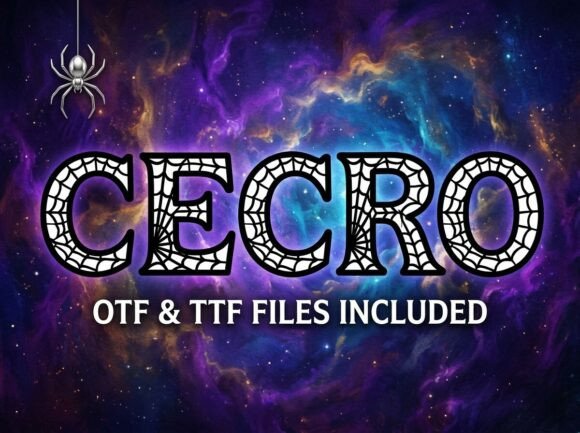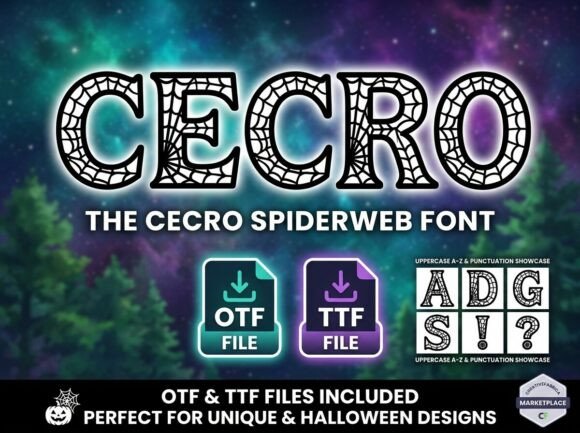
Unleash the Spookiness: Discover the Captivating Cecro Font
Are you looking for a typeface that embodies the essence of Halloween, occult mysticism, and dark fantasy? Look no further than Cecro, a captivating display font that is sure to ensnare your imagination. With its bold, outlined letterforms and intricate internal texture of rhythmic, hand-drawn “spiderweb” patterns, Cecro is the perfect choice for designers and crafters seeking to add a touch of gothic mystery and modern Halloween flair to their projects.
The Unique Characteristics of Cecro Font
Cecro’s design is characterized by its heavy structural weight, which gives it a bold and eye-catching presence. The font’s outlined letterforms are uniquely adorned with an intricate internal texture of rhythmic, hand-drawn “spiderweb” patterns, adding an extra layer of depth and visual interest. This distinctive feature bridges the gap between gothic mystery and modern Halloween branding, making Cecro a versatile and effective choice for a wide range of design applications.
Ideal Applications for Cecro Font
So, what can you use Cecro for? The possibilities are endless, but here are some ideal applications for this captivating font:
- Independent Haunted Attraction Identities: Create a spooky and inviting atmosphere for your haunted house, haunted hayride, or haunted attraction with Cecro’s bold and eerie lettering.
- Boutique Occult Shop Logos: Add a touch of mysticism and mystery to your occult shop’s branding with Cecro’s unique and captivating design.
- Dark Fantasy Book Covers: Make your dark fantasy book cover stand out with Cecro’s bold and eye-catching lettering, perfect for conveying the essence of your story.
- High-Impact Social Media Headers: Add a touch of Halloween flair to your social media headers with Cecro’s webbed-and-wonderful design, sure to grab attention and drive engagement.
Why Choose Cecro Font?
With so many fonts available, why choose Cecro? Here are just a few reasons why Cecro stands out:
- Unique and Captivating Design: Cecro’s intricate internal texture and bold, outlined letterforms make it a one-of-a-kind font that is sure to grab attention.
- Versatility: Cecro’s design is versatile and adaptable, making it suitable for a wide range of design applications, from haunted attraction identities to dark fantasy book covers.
- Eerie Personality: Cecro’s design embodies the essence of Halloween and occult mysticism, making it perfect for designers and crafters seeking to add a touch of spookiness to their projects.
Tips for Using Cecro Font Effectively
To get the most out of Cecro, here are some tips for using the font effectively:
- Use it Sparingly: Cecro’s bold and eye-catching design makes it perfect for headlines and titles, but use it sparingly to avoid overwhelming your design.
- Experiment with Colors: Cecro’s design looks great in a range of colors, from bold and bright to dark and muted. Experiment with different colors to find the perfect fit for your design.
- Pair it with Other Fonts: Cecro’s unique design makes it a great choice for pairing with other fonts. Experiment with different font combinations to create a unique and visually appealing design.
In conclusion, Cecro is a captivating display font that is sure to ensnare your imagination. With its bold, outlined letterforms and intricate internal texture of rhythmic, hand-drawn “spiderweb” patterns, Cecro is the perfect choice for designers and crafters seeking to add a touch of gothic mystery and modern Halloween flair to their projects. Whether you’re creating a haunted attraction identity, boutique occult shop logo, dark fantasy book cover, or high-impact social media header, Cecro is the premier choice for adding a touch of spookiness and visual interest.